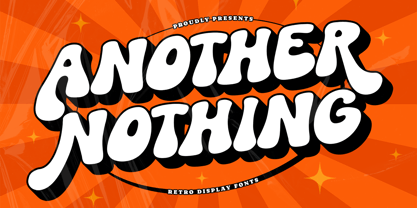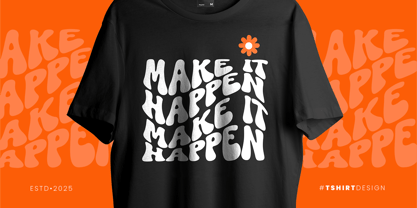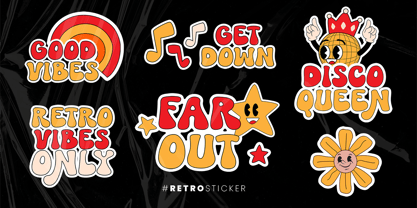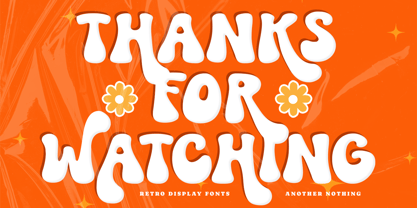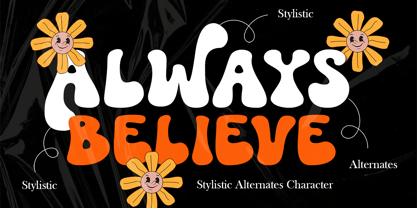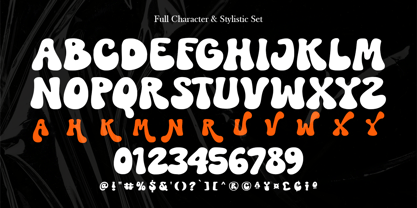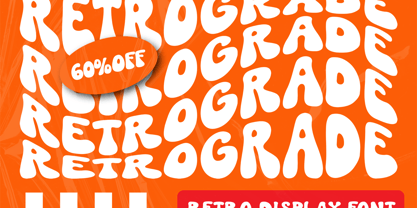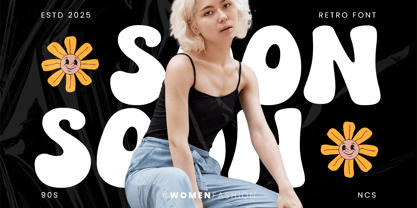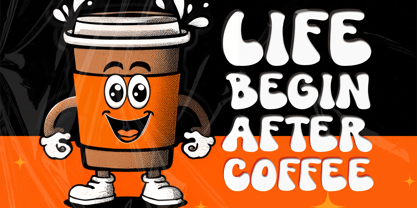
Another Nothing
by Namara Creative Studio
The Another Nothing Font Family was designed by Toni Setiawan and published by Namara Creative Studio. Another Nothing contains 2 styles and family package options.
Say hello to Another Nothing – a bold, bubbly font that brings retro vibes with a fun, modern twist! Inspired by 70s psychedelic styles, this display font is full of personality and perfect for designs that want to stand out and make a statement.
With chunky letterforms, playful curves, and dripping details, Another Nothing is your go-to font for posters, album covers, funky branding, merch, and anything that needs a splash of bold, creative energy. It also comes with a cool set of stylistic alternates (shown in orange) to help you mix things up and add extra flair to your designs.
• Music & festival posters
• Apparel and merch design
• Vintage or psychedelic branding
• Bold social media graphics & Funky packaging
Whether you’re designing for a throwback vibe or just want something bold and playful, Another Nothing is here to help your work stand out. Let your type do the talking in the loudest, grooviest way possible!